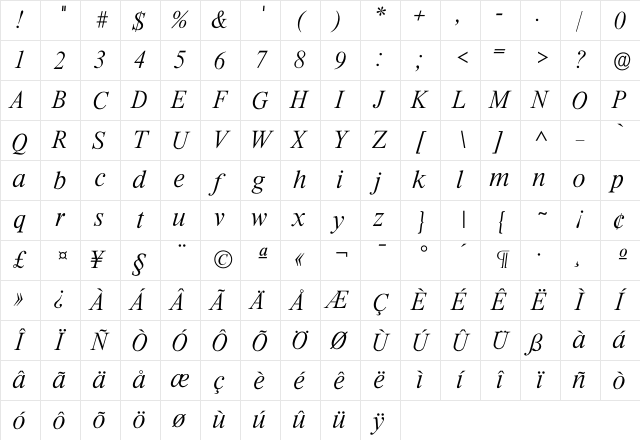
Iriccione Xlight
Style: Xlight
Iriccione Family
Design Context for Iriccione
Iriccione is a composed and adaptable typeface that performs quietly and consistently across a wide range of design contexts. Its slender proportions lend an understated elegance to any composition.